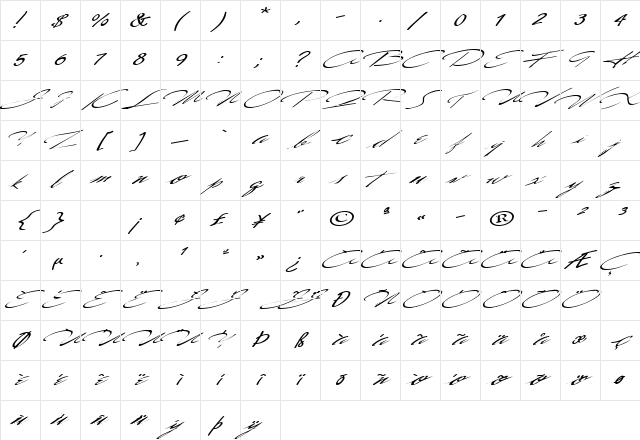
WayFarer10 Regular
WayFarer10 Family
Complete WayFarer10 Regular glyph index. Displaying only characters natively supported by WayFarer10 Regular font.
Design Context for WayFarer10
WayFarer10 is a composed and adaptable typeface that performs quietly and consistently across a wide range of design contexts.